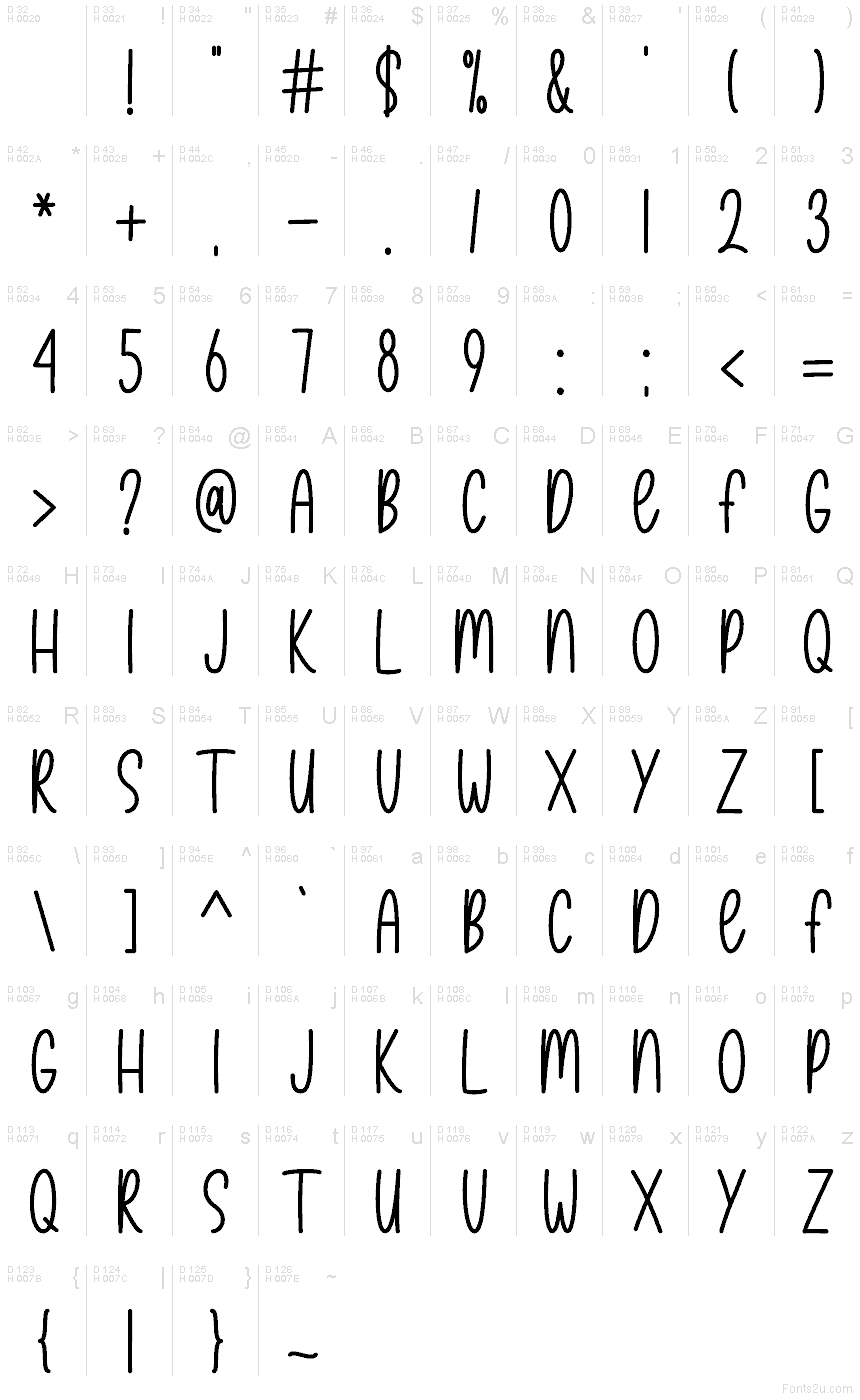
FRESH
Fresh font is a free handwritten font created by DN Creative. The condensed letters with rounded edges give it a smooth and friendly appearance while preserving casual notes that trigger an approachable feeling in the eyes of the reader. It has a contemporary touch to suit today’s businesses, projects, or entrepreneurs.